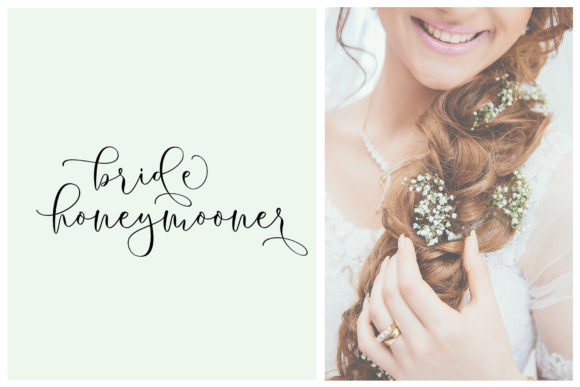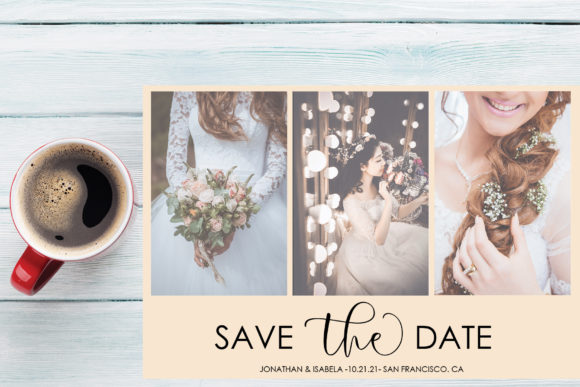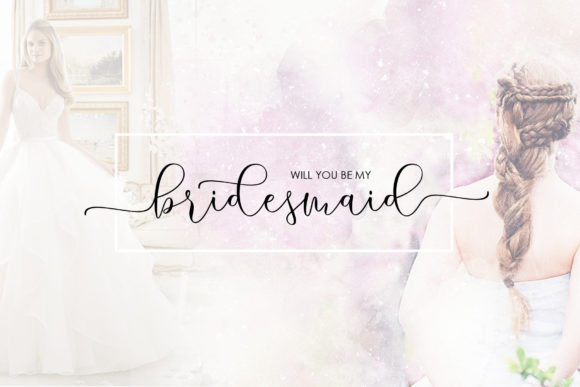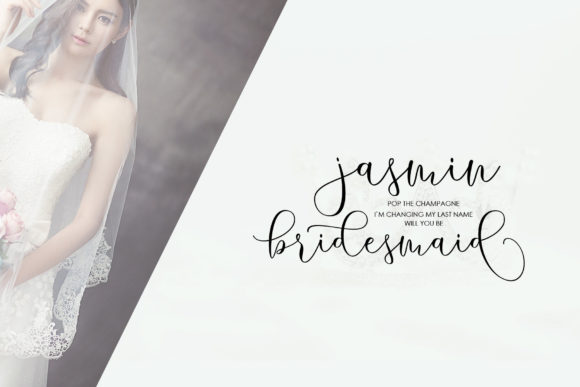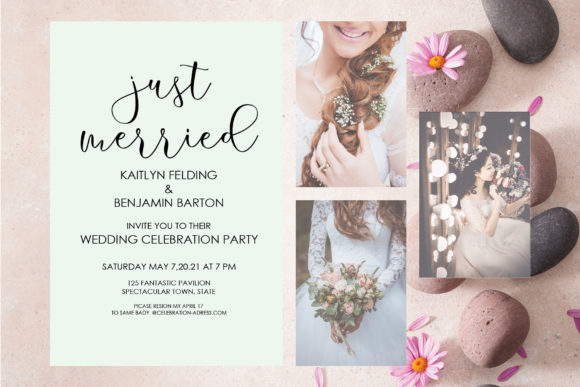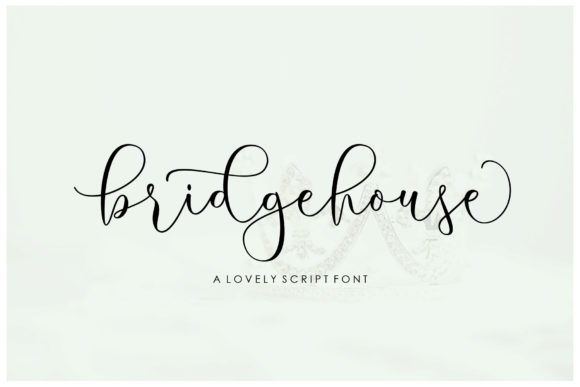
Introducing Bridgehouse Font: Elevate Your Designs with Elegance and Sophistication
In the world of typography, a font can make or break a design. For designers and crafters seeking to add a touch of elegance and sophistication to their work, Bridgehouse Font is an exceptional choice. This beautiful and refined script font is designed to bring a classy, elegant, and modern look to various design projects, including logos, branding, invitations, stationery, wedding designs, social media posts, and more.
What Makes Bridgehouse Font Stand Out?
Bridgehouse Font boasts a unique blend of classic and contemporary elements, making it a versatile and stylish addition to any designer’s toolkit. Here are some key features that set it apart:
• Classy and Elegant Design: Bridgehouse Font exudes sophistication and refinement, making it perfect for designs that require a high level of elegance.
• Modern Look: Despite its classic undertones, Bridgehouse Font has a distinctly modern feel that will appeal to designers looking for a fresh and contemporary aesthetic.
• PUA Encoded: This font is PUA (Private Use Area) encoded, which means that accessing glyphs and swashes is incredibly easy. This feature allows designers to unlock the full creative potential of Bridgehouse Font.
Use Cases for Bridgehouse Font
Bridgehouse Font’s versatility makes it suitable for a wide range of design applications. Here are some ideas to get you started:
• Logos and Branding: Create a lasting impression with a custom logo or brand identity that showcases your business’s personality and values.
• Invitations and Stationery: Add a touch of elegance to your invitations, greeting cards, and stationery with Bridgehouse Font’s beautiful script.
• Wedding Designs: Make your wedding designs truly unforgettable with Bridgehouse Font’s romantic and sophisticated aesthetic.
• Social Media Posts: Elevate your social media presence with eye-catching graphics and typography that reflect your brand’s personality.
Tips for Getting the Most Out of Bridgehouse Font
To maximize the creative potential of Bridgehouse Font, consider the following tips:
• Experiment with Swashes and Glyphs: Take advantage of Bridgehouse Font’s PUA encoding to access a wide range of swashes and glyphs. These can add a unique touch to your designs and help you create something truly bespoke.
• Pair with Complementary Fonts: Bridgehouse Font pairs beautifully with a variety of fonts. Experiment with different combinations to find the perfect match for your design.
• Play with Color and Texture: Don’t be afraid to get creative with color and texture. Bridgehouse Font looks stunning in a range of colors and can be paired with various textures to add depth and interest to your designs.
Font Name Bridgehouse Font
Author moriztype
Bridgehouse Font is a beautiful and refined script font that offers designers and crafters a world of creative possibilities. With its classy, elegant, and modern look, PUA encoding, and versatility, it’s the perfect choice for a wide range of design applications. Whether you’re looking to create a stunning logo, elegant invitations, or eye-catching social media posts, Bridgehouse Font is sure to elevate your designs and leave a lasting impression.